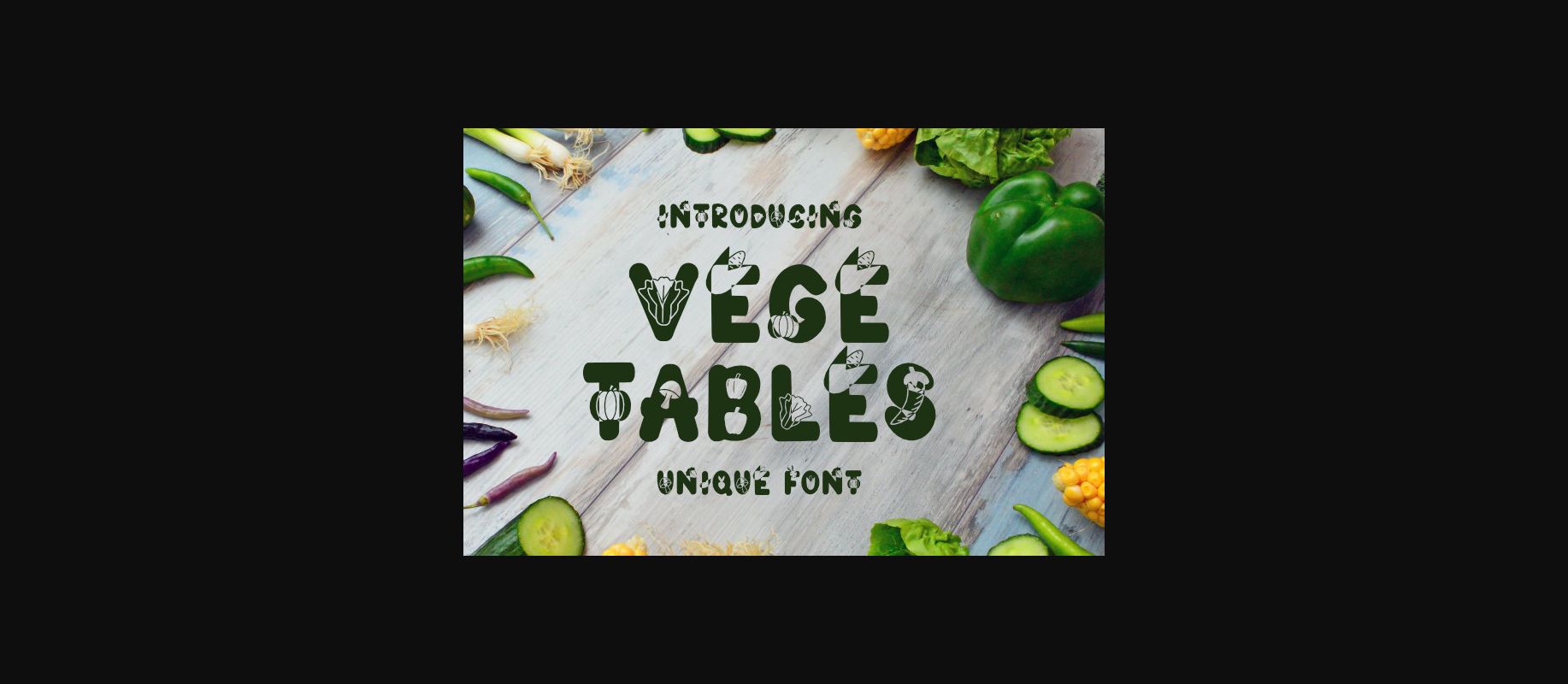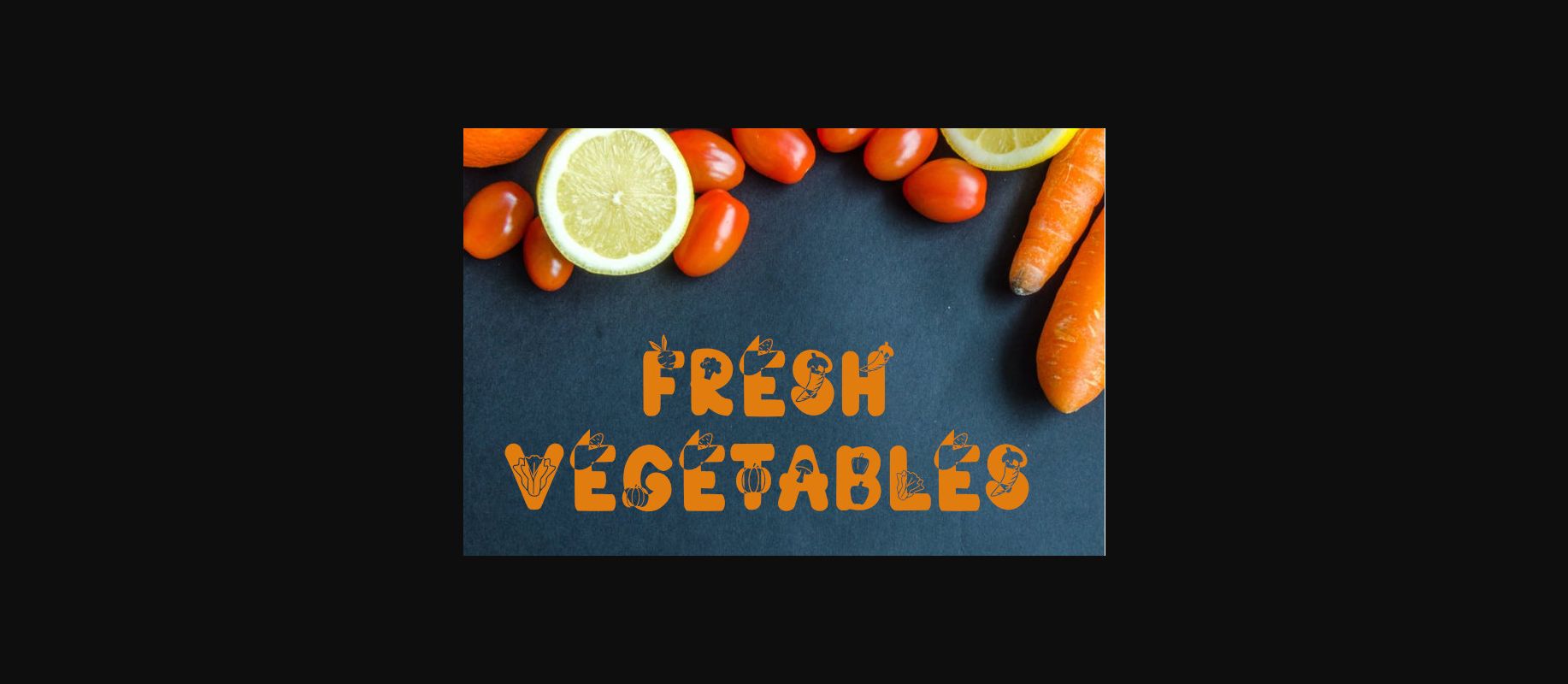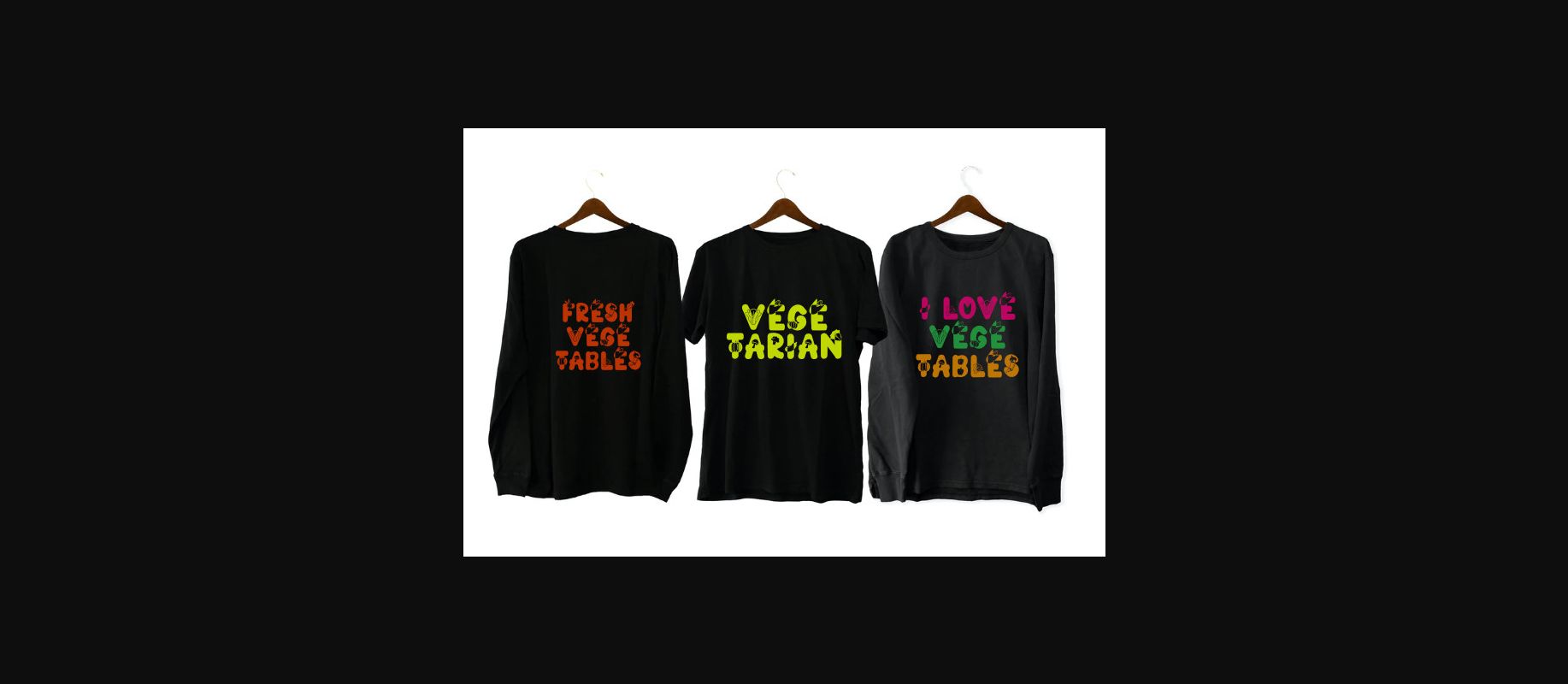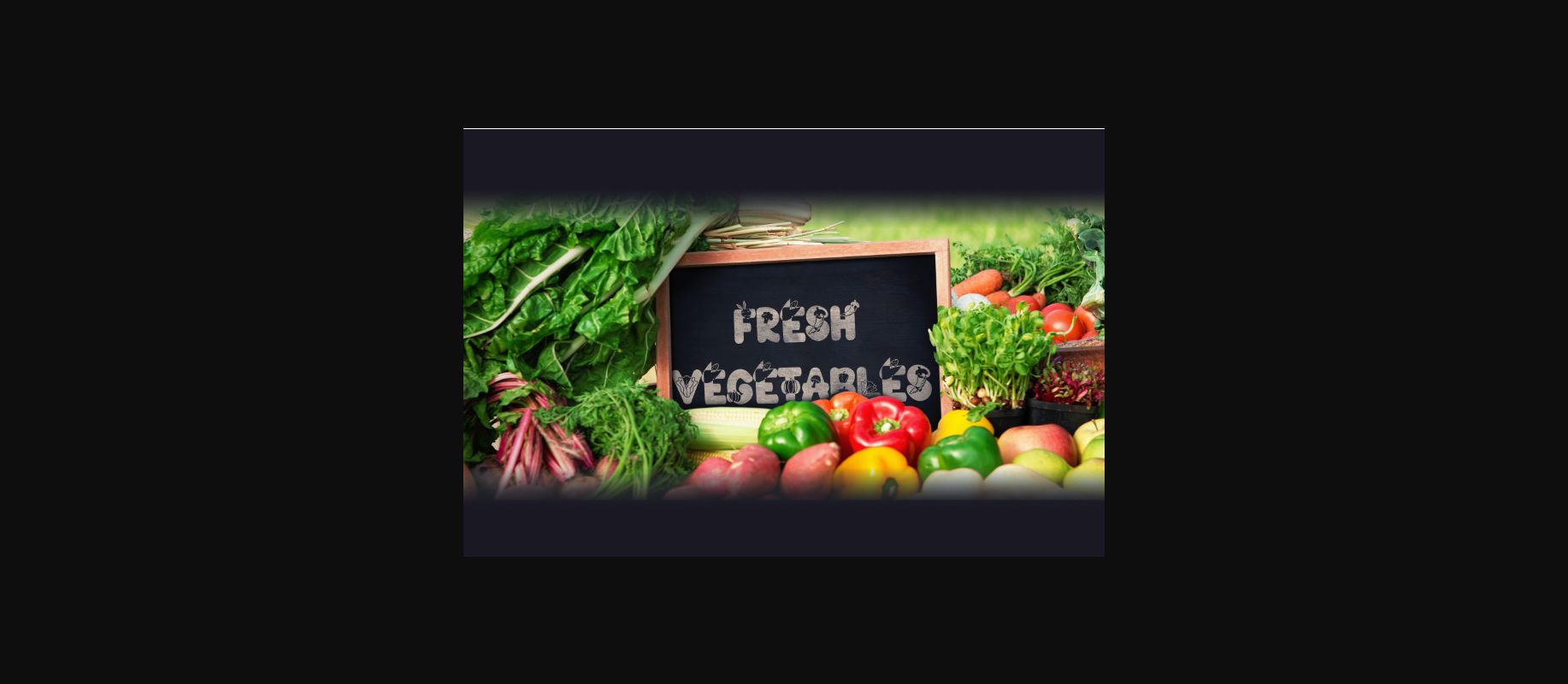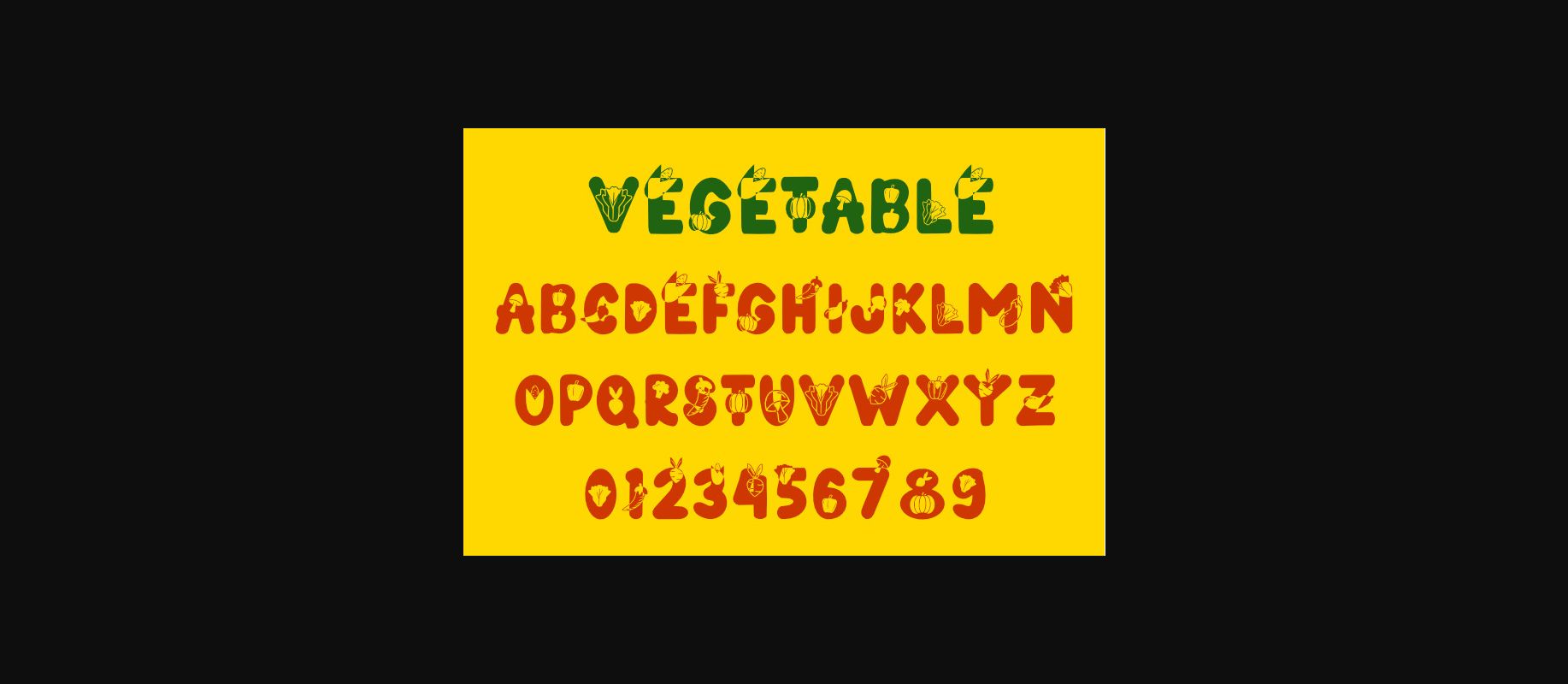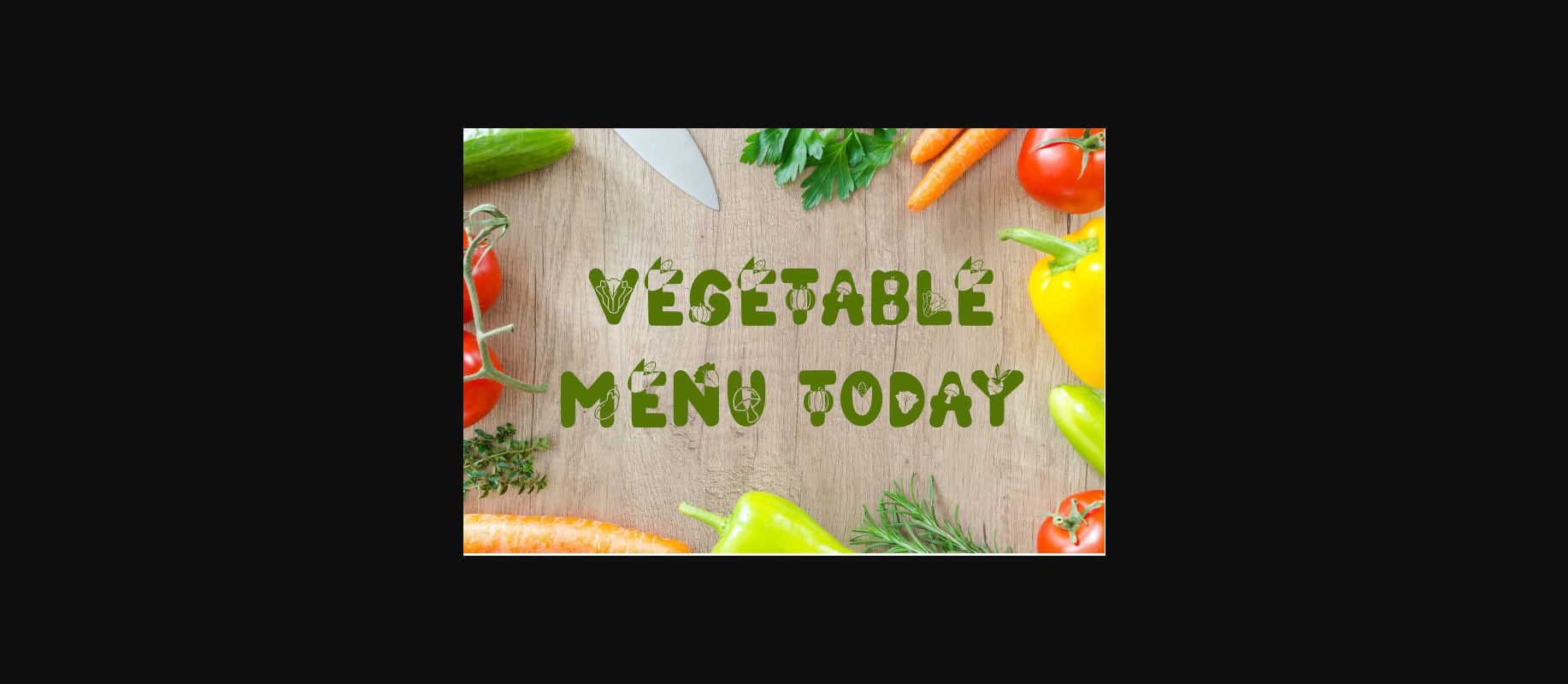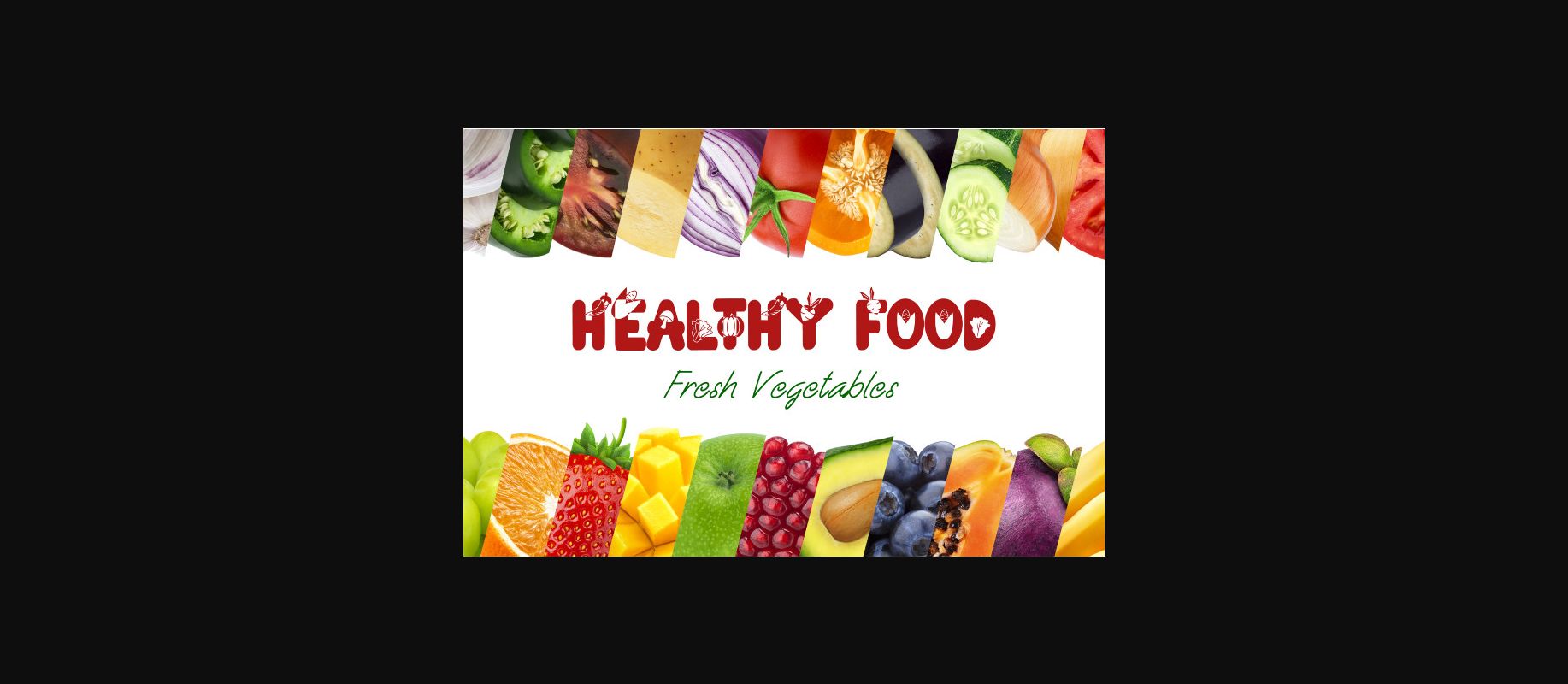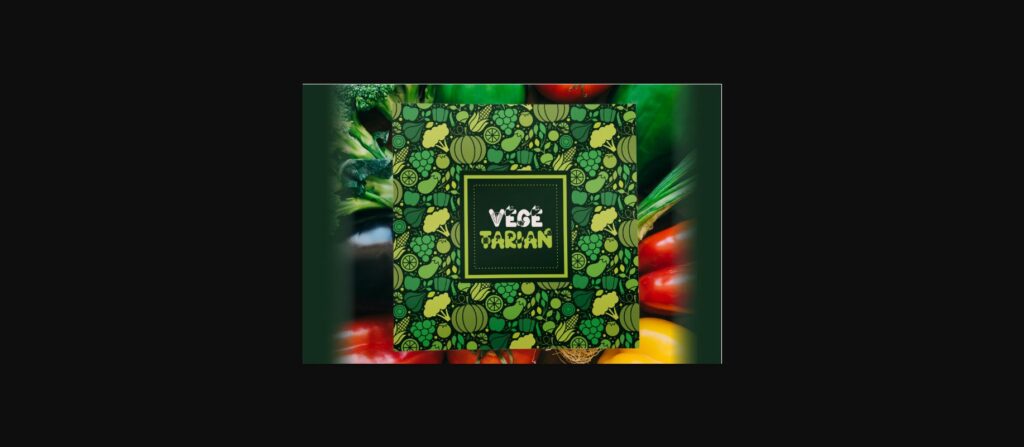
About Vegetables Font
Vegetables is an excellent, playful decorative font. It features vegetable-themed characters and will add a lovely, fun, and down to earth vibe to each of your creative ideas.